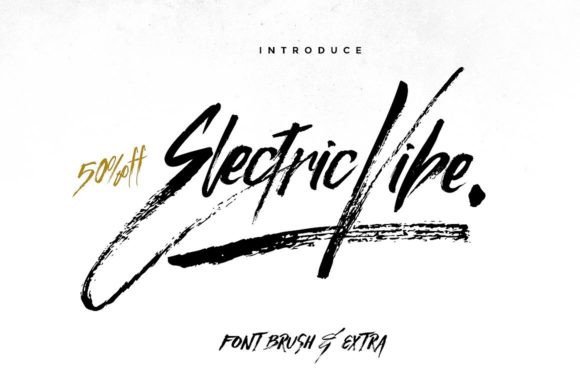
Step into the world of Electric Vibe, a contemporary display font that oozes elegance and sophistication. Immerse yourself in its mesmerizing handwritten style, where each letter dances with an excentric rhythm of lines and curves, creating a captivating visual symphony. Electric Vibe's minimal aesthetic lends it a timeless charm, making it the perfect choice for headings and titles that demand attention.
With Electric Vibe, your designs will radiate a modern flair, capturing the essence of contemporary aesthetics. Its clean and eye-catching appearance adds a touch of polish to any project, whether it's a website, a poster, or an invitation. Unleash your creativity and let the words flow with an energy that resonates with your audience.
Electric Vibe is more than just a font; it's an artistic expression that brings life to your words. Its unique character adds a personal touch to your designs, creating a lasting impression on your readers. It's the perfect font for those who seek to make a statement, to leave an imprint on the hearts and minds of their audience.